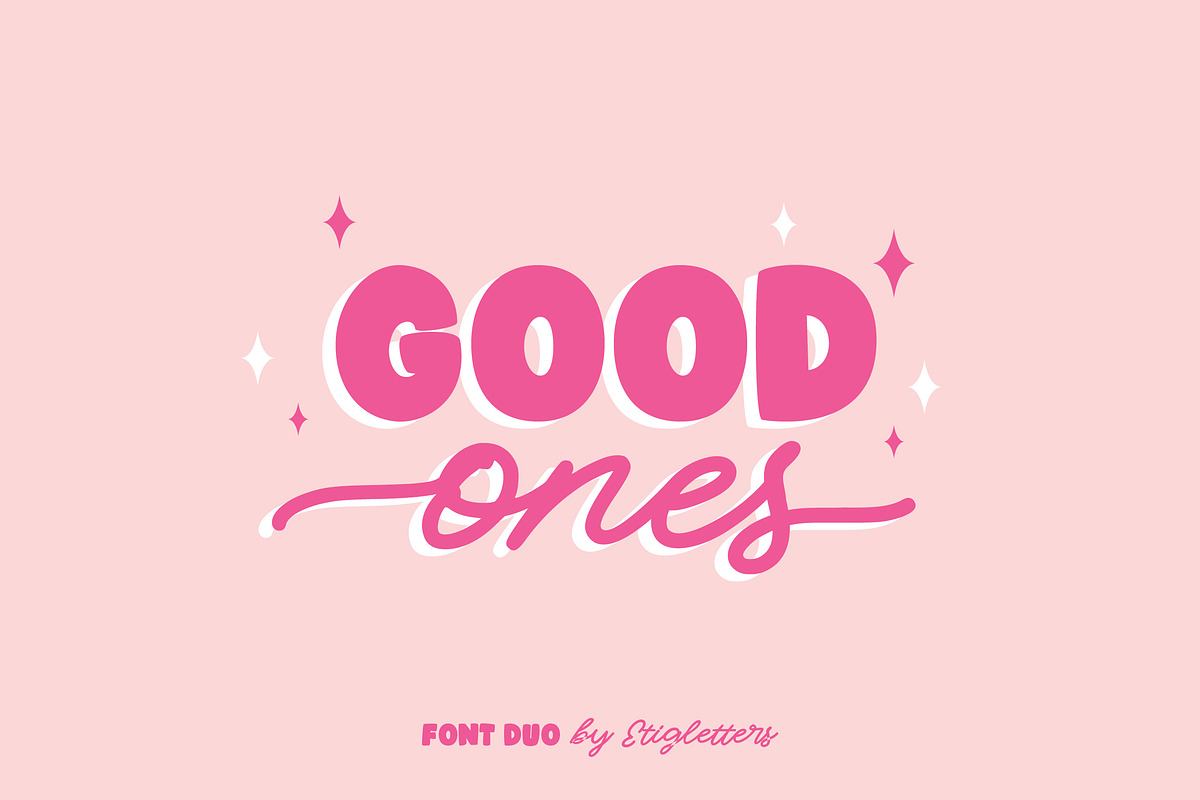
Good Ones Font Duo Free Download is a stylish and versatile font pairing that combines the elegance of a handwritten script with the clean, modern feel of a sans-serif. Perfect for branding, invitations, logos, social media content, and more, this font duo offers the flexibility to create stunning designs with a mix of personal and professional styles.
The script font adds a flowing, expressive touch, while the sans-serif provides balance and clarity. Whether you're creating a whimsical design or a more polished look, Good Ones Font Duo provides a perfect combination for all your creative needs.